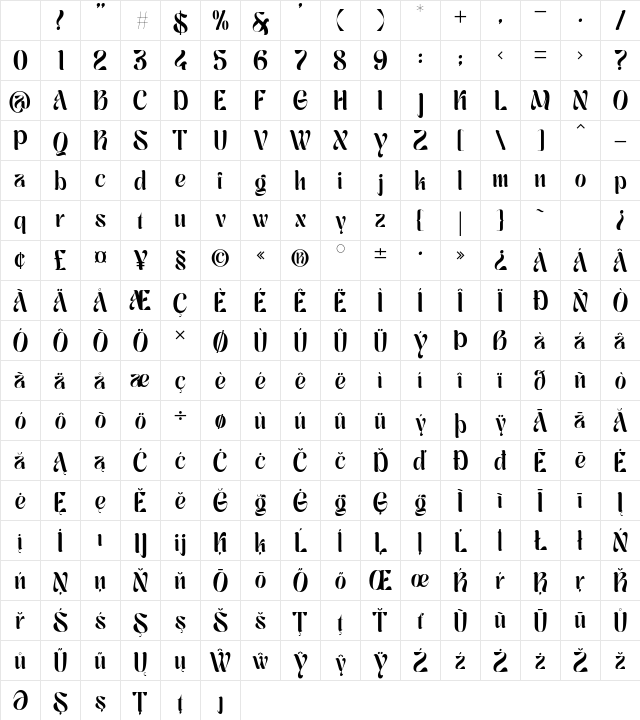
Complete Magno Regular glyph index. Displaying only characters natively supported by Magno Regular font.
Magno is a composed and adaptable typeface that performs quietly and consistently across a wide range of design contexts.